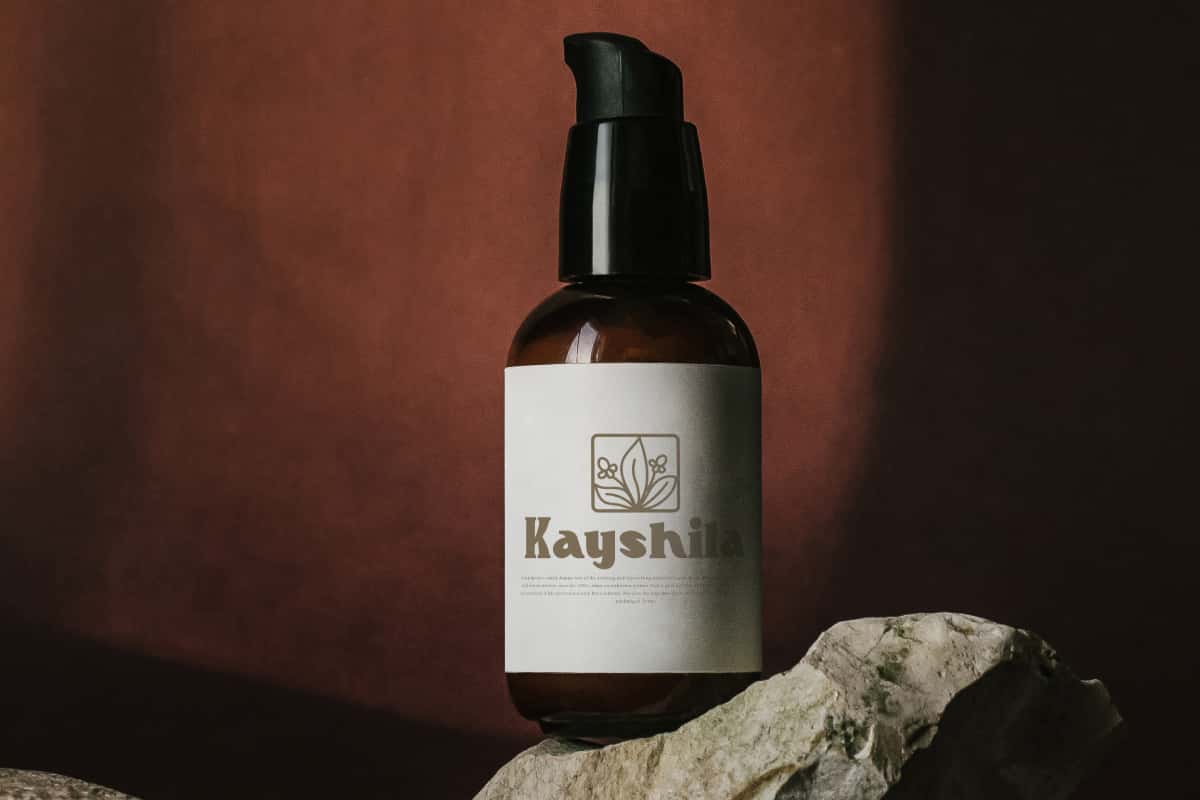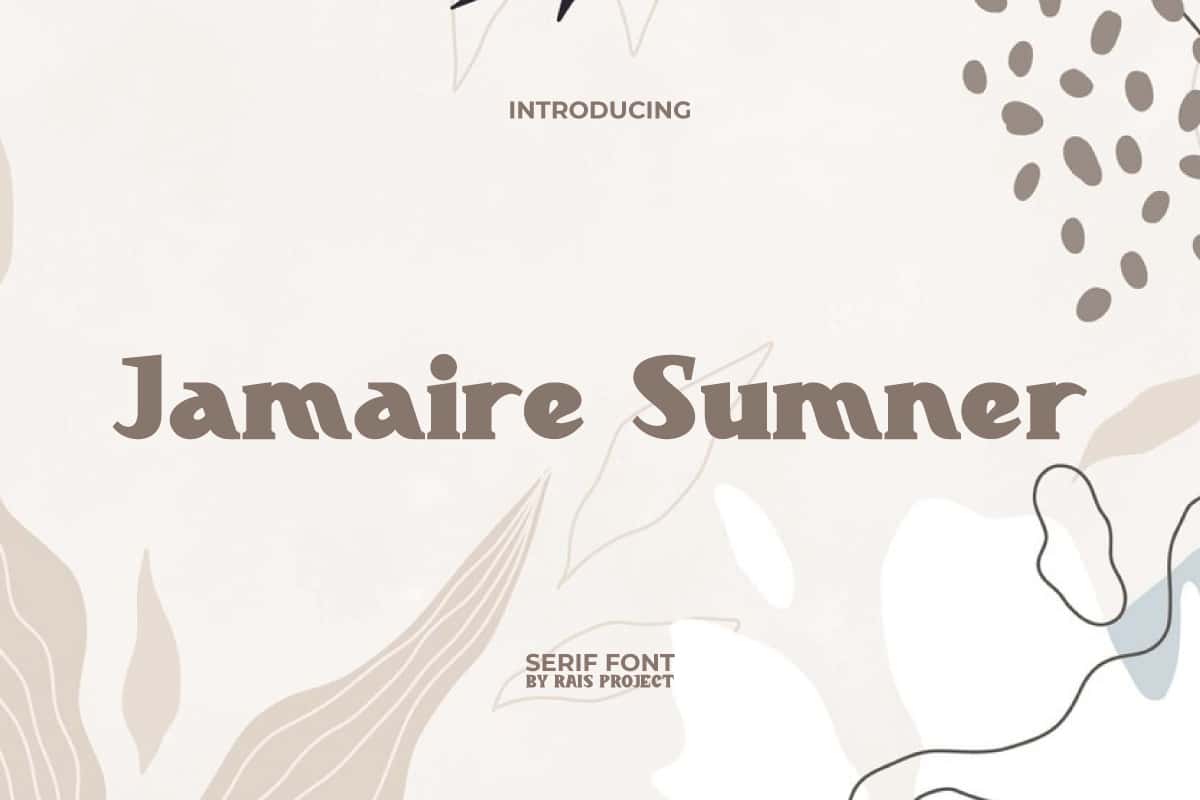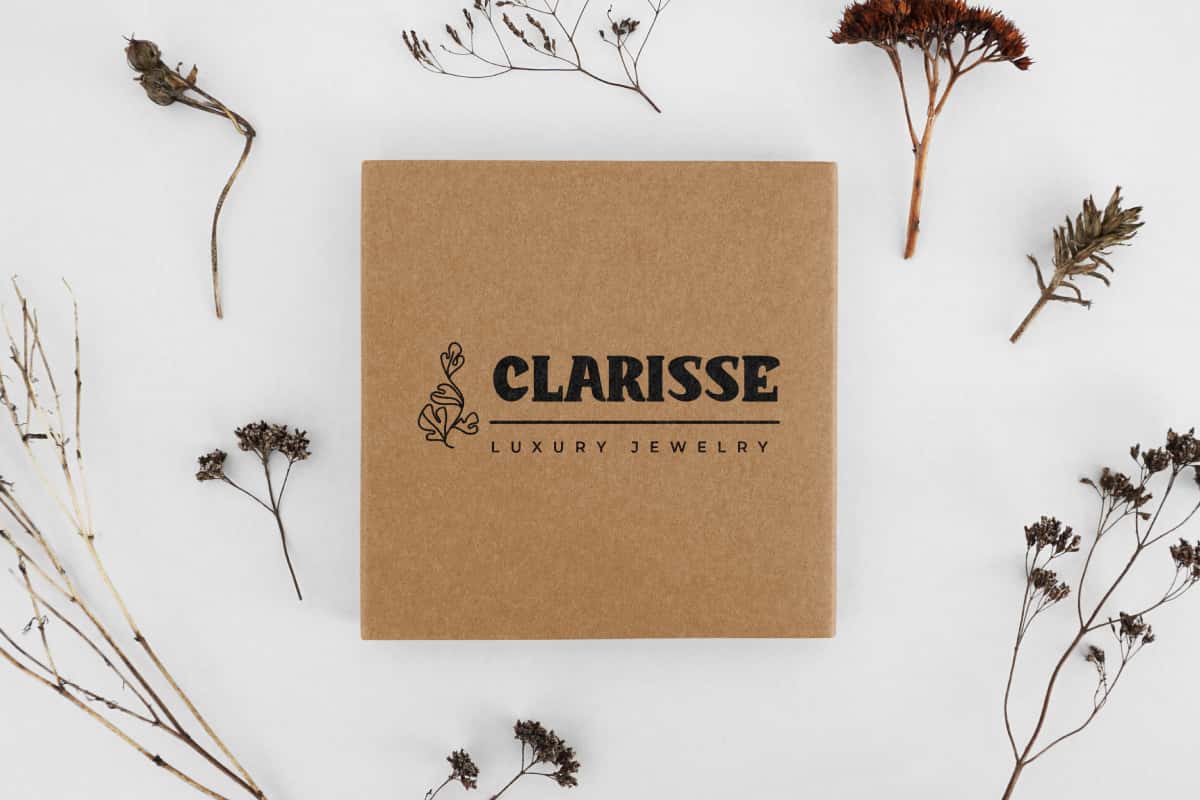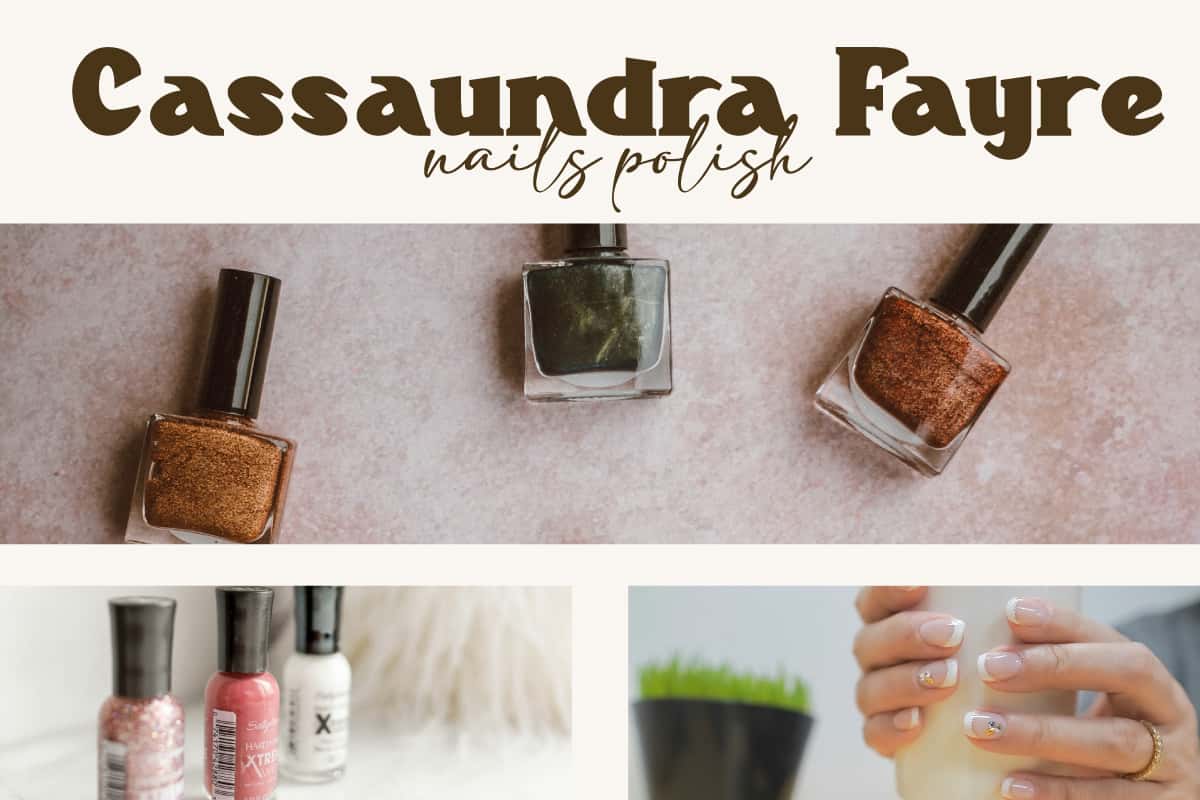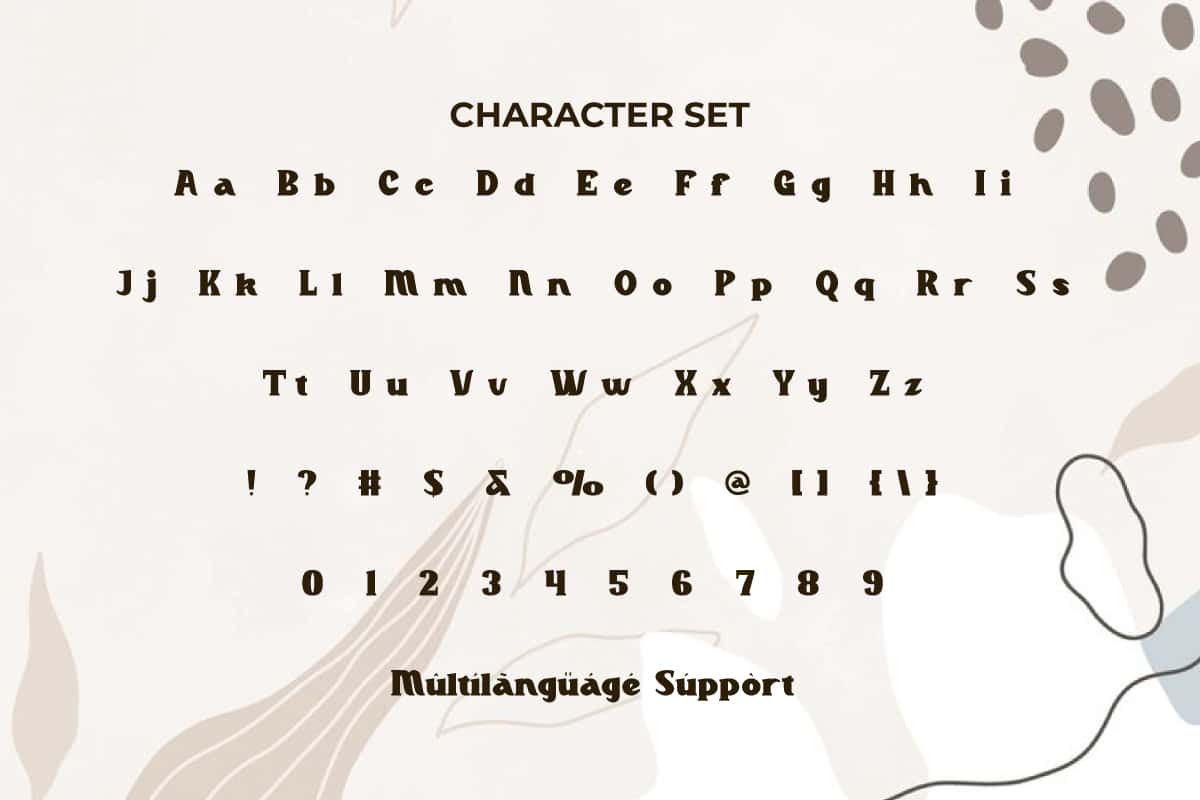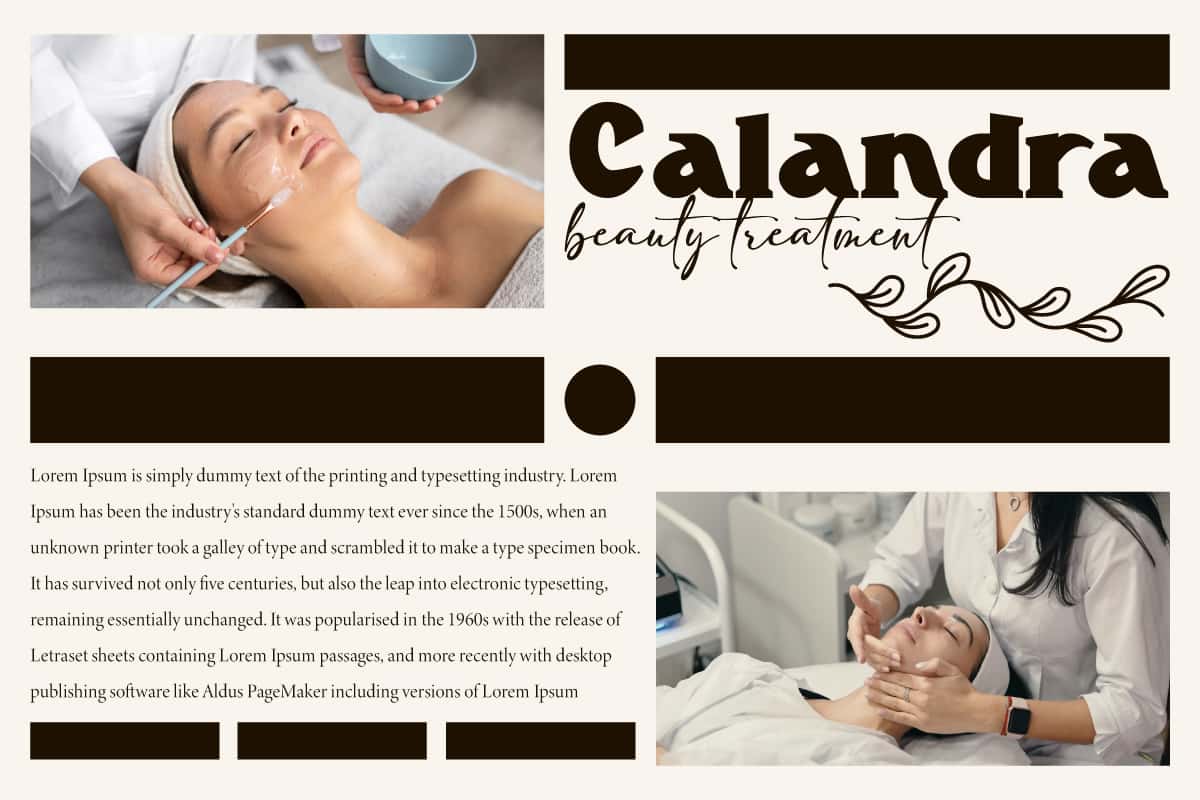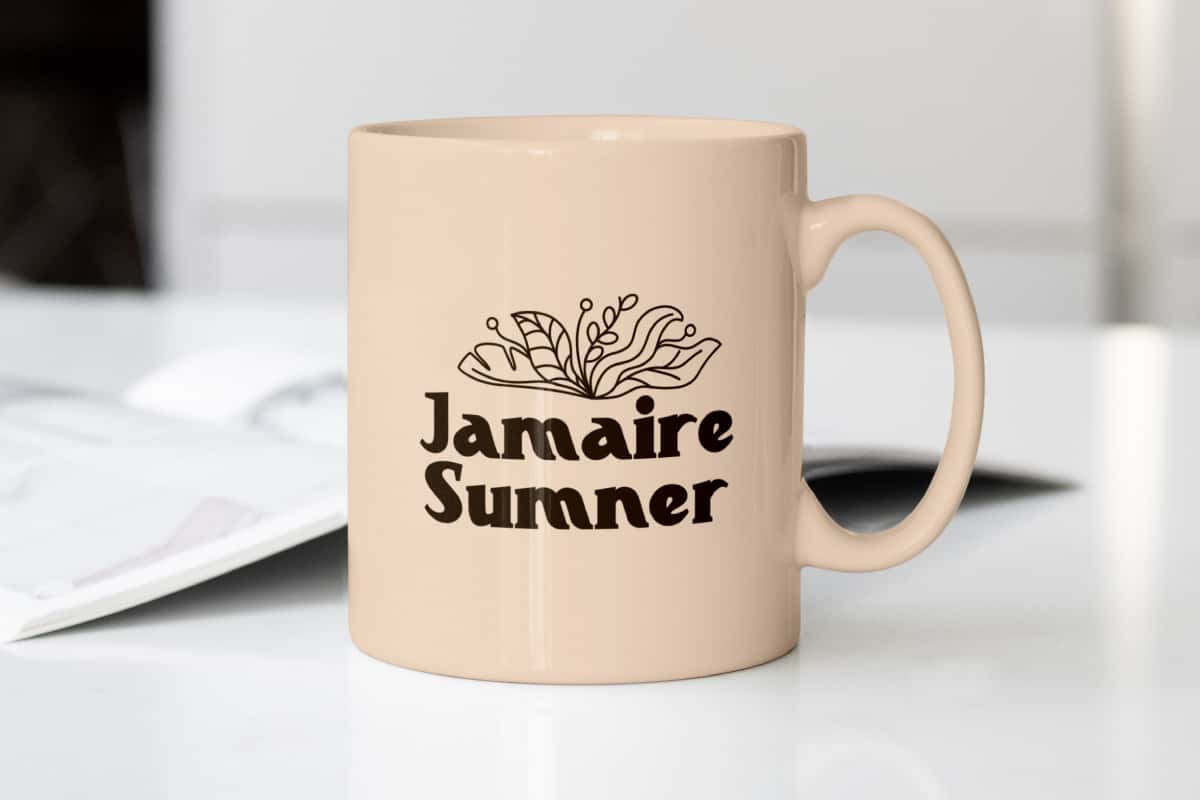
Jamaire Summer Font
Jamaire Summer Font is a cute adorable and fun sans serif display font that will make your designs looks beautifully different.
Jamaire Summer Font is a cute adorable and fun sans serif display font that will make your designs looks beautifully different.. By having bold letter characters, this font can be read easily in various types of designs. It will look good for invitation, signage, label, stationery, brand image, cover, custom design, poster, product packaging, quotes, web, and more!
Jamaire Summer Font includes a full set of Uppercase and Lowercase Letters, Numerals, Punctuation, and Symbol. This cute font will be suitable for various industries, such as fashion, accessories and jewelry, advertisement, event or wedding organizer, florist, homeware, perfume, photography, printing, publishing, real estate, etc.